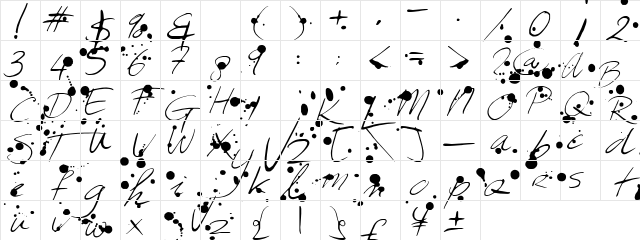
Leakage Regular Free Font
Leakage Regular
Foundry: David Kerkhoff
Designer: David Kerkhoff
Design Context for Leakage
Leakage is a composed and adaptable typeface that performs quietly and consistently across a wide range of design contexts.
Who designed the Leakage Regular font?